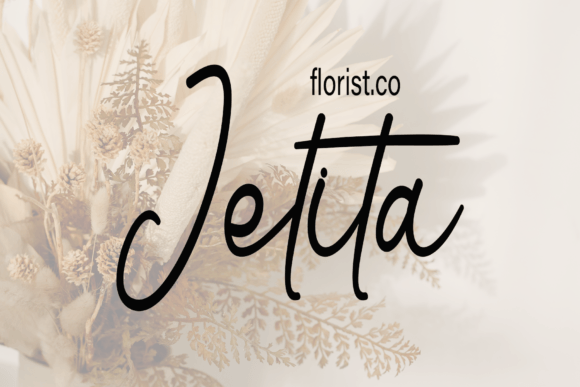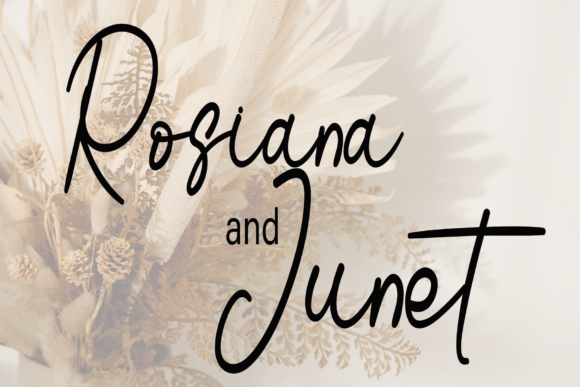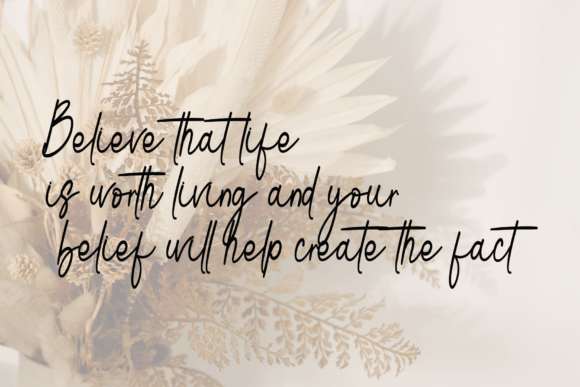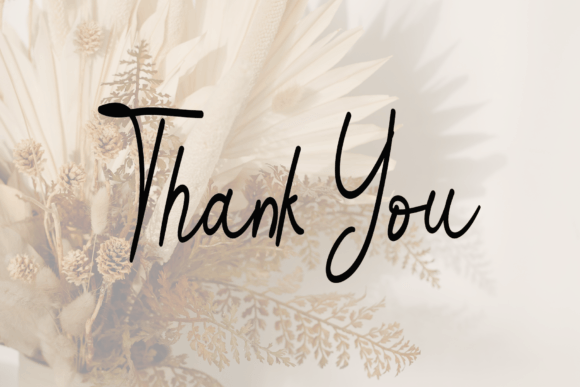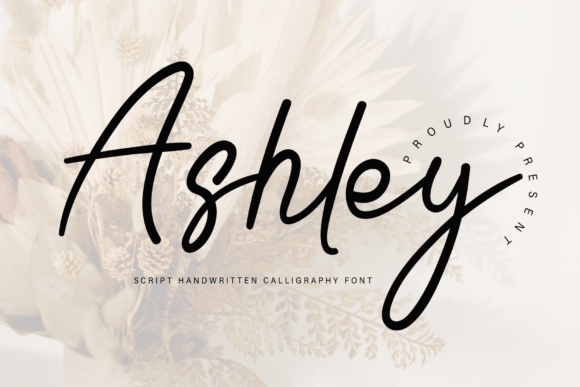
Ashley Font: Elevate Your Designs with Elegance and Timeless Style
Are you on the hunt for a font that exudes elegance, sophistication, and a touch of handmade charm? Look no further than the Ashley Font, a stunning handwritten typeface that is sure to capture your heart. With its unique blend of classic and modern elements, this beautiful font is perfect for designers, crafters, and anyone looking to add a personal touch to their projects.
What Makes Ashley Font So Special?
Ashley Font is described as a neat and beautiful handwritten font, characterized by an elegant touch that sets it apart from other typefaces. Its incredibly distinct and timeless style makes it an excellent choice for a wide range of design applications, from branding and advertising to packaging and digital media. Whether you’re creating a logo, brochure, or social media graphic, Ashley Font is sure to make your designs stand out.
Key Features of Ashley Font
- Elegant Handwritten Style: Ashley Font boasts a beautiful, handwritten aesthetic that adds a touch of warmth and personality to any design.
- Timeless Appeal: Unlike trendy fonts that quickly go out of style, Ashley Font’s classic design ensures it remains relevant and stylish for years to come.
- Versatility: This font is perfect for a wide range of projects, including logos, headings, and body text.
- Easy to Read: Despite its elegant nature, Ashley Font remains highly legible, making it suitable for both digital and print applications.
Who Can Benefit from Using Ashley Font?
Tips for Using Ashley Font Effectively
- Pair with Contrasting Fonts: Combine Ashley Font with a bold, sans-serif font to create visual interest and hierarchy.
In conclusion, Ashley Font is a truly special typeface that offers a unique blend of elegance, sophistication, and handmade charm. With its timeless style, versatility, and ease of use, this beautiful font is perfect for designers, crafters, and anyone looking to elevate their designs. Whether you’re creating a logo, brochure, or social media graphic, Ashley Font is sure to make your projects stand out. So why wait? Fall in love with Ashley Font and start creating spectacular designs today!